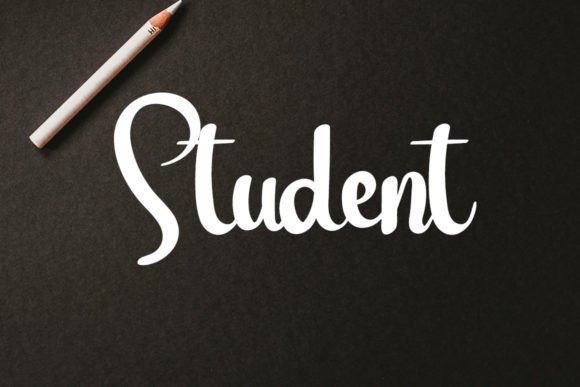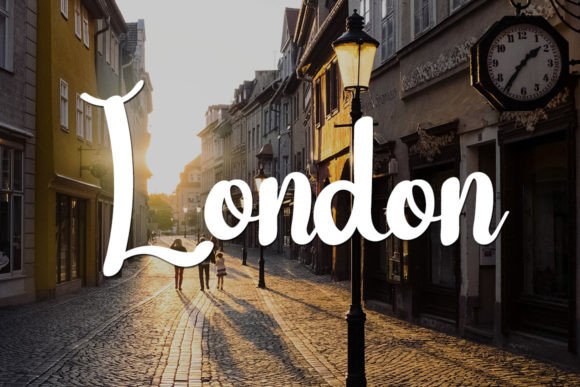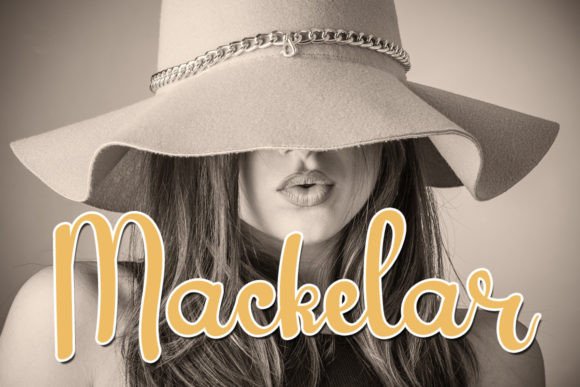
Aiefely Font: The Sweet and Elegant Choice for Designers and Crafters
Are you looking for a font that can add a touch of sweetness and elegance to your designs? Look no further than Aiefely Font! This beautiful font is perfect for a variety of projects, from invitations and cards to social media graphics, bags, clothing, and more. In this article, we’ll take a closer look at Aiefely Font and explore its features, uses, and benefits for designers and crafters.
What is Aiefely Font?
Aiefely Font is a fresh, clean, and elegant font that is sure to capture your audience’s attention. Its sweet and delicate design makes it perfect for a wide range of applications, from formal events to casual social media posts. Whether you’re a designer, crafter, or DIY enthusiast, Aiefely Font is a great choice for adding a touch of sophistication and charm to your projects.
Key Features of Aiefely Font
- Fresh and Clean Design: Aiefely Font features a modern and clean design that is easy to read and visually appealing.
- Elegant and Sophisticated: The font’s elegant design makes it perfect for formal events, such as weddings, baby showers, and graduations.
- Versatile: Aiefely Font can be used for a wide range of projects, including invitations, cards, social media graphics, bags, clothing, and more.
- Easy to Read: The font is clear and easy to read, making it perfect for both print and digital applications.
Uses of Aiefely Font
Aiefely Font is a versatile font that can be used for a variety of projects, including:
- Invitations: Use Aiefely Font to create beautiful and elegant invitations for weddings, baby showers, graduations, and more.
- Cards: Add a touch of sweetness and elegance to your greeting cards, thank-you cards, and birthday cards.
- Social Media Graphics: Use Aiefely Font to create eye-catching social media graphics, such as Facebook posts, Instagram stories, and Twitter headers.
- Bags and Clothing: Add a personal touch to your bags, clothing, and accessories with Aiefely Font.
- Web Design: Use Aiefely Font to create a beautiful and elegant website that reflects your brand’s personality.
- Flyers and Brochures: Use Aiefely Font to create eye-catching flyers and brochures for your business or event.
Benefits of Using Aiefely Font
There are many benefits to using Aiefely Font for your design projects. Here are a few:
- Unique and Creative: Aiefely Font is a unique and creative font that can help you stand out from the crowd.
- Elegant and Sophisticated: The font’s elegant design makes it perfect for formal events and applications.
- Versatile: The font can be used for a wide range of projects, making it a great addition to your font library.
In conclusion, Aiefely Font is a beautiful and sweet font that is perfect for designers and crafters looking to add a touch of elegance and sophistication to their projects. Its fresh, clean, and elegant design makes it versatile and easy to use, making it a great choice for a wide range of applications. Whether you’re creating invitations, cards, social media graphics, or more, Aiefely Font is sure to impress.